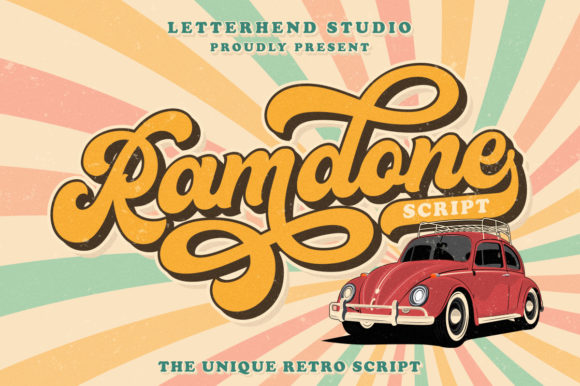
Delve into the world of nostalgia with "Ramdone", a retro bold script crafted with the essence of the past. Immerse yourself in its distinctive letters, echoing the charm of vintage typography. Let your designs exude a timeless elegance that transports you to an era of classic beauty.
Ramdone is meticulously designed to capture the essence of yesteryear, bringing a touch of sophistication and nostalgia to your creative projects. Whether you're crafting heartfelt invitations, designing captivating marketing materials, or adding a personal touch to your digital creations, Ramdone will elevate your designs to new heights.
With its bold strokes and carefully crafted curves, this script font adds depth and character to your words. Its vintage aesthetic evokes a sense of authenticity and nostalgia, making it an ideal choice for creating designs that resonate with a wide audience.
Whether you're a seasoned designer or a creative enthusiast, Ramdone offers unparalleled versatility, proving to be a valuable addition to any font collection. Its retro charm pairs effortlessly with modern elements, allowing you to create designs that are both timeless and contemporary. Unleash your creativity and explore the endless possibilities that Ramdone holds.
Take your designs on a journey through time with "Ramdone". Let its classic charm captivate your audience and leave a lasting impression. Embrace the beauty of nostalgia and make your creative vision a reality.